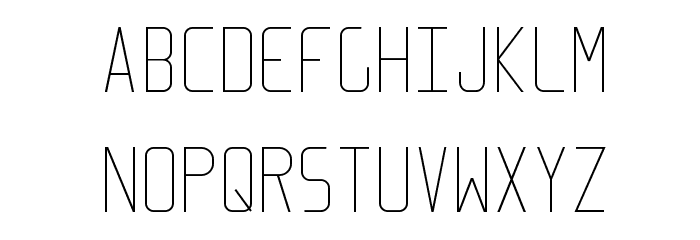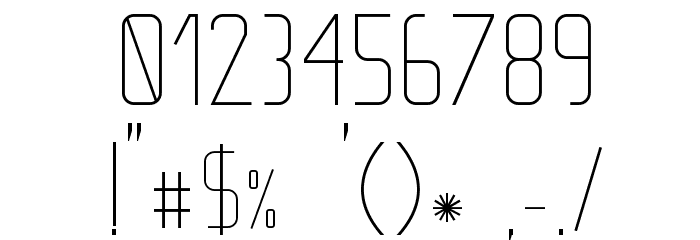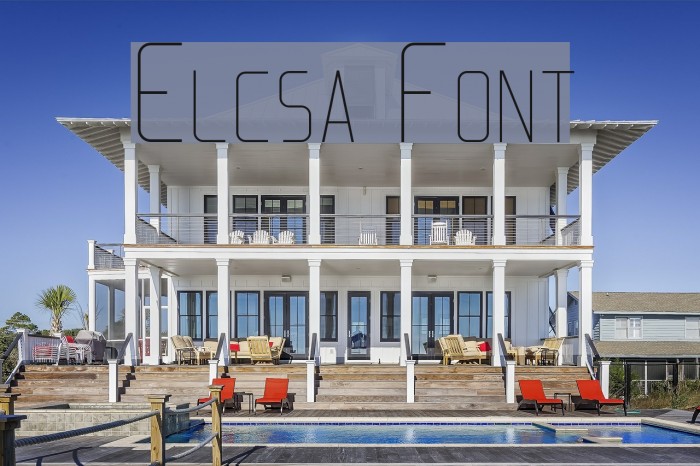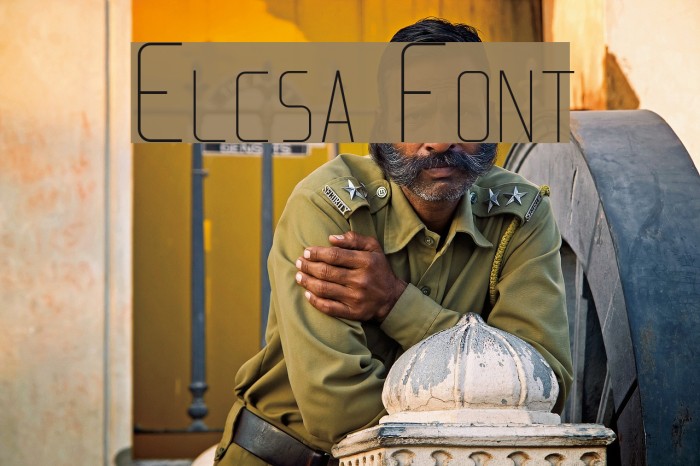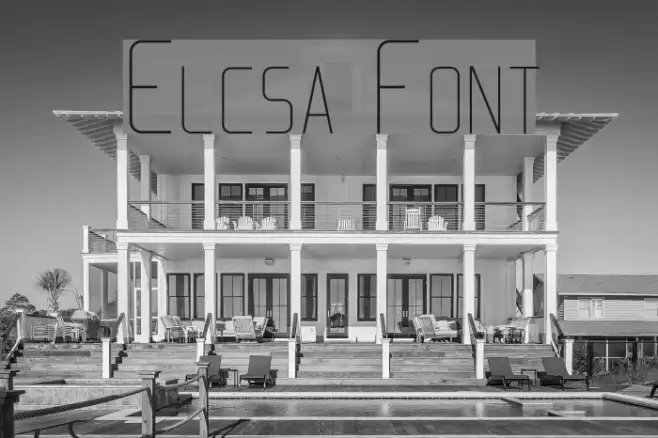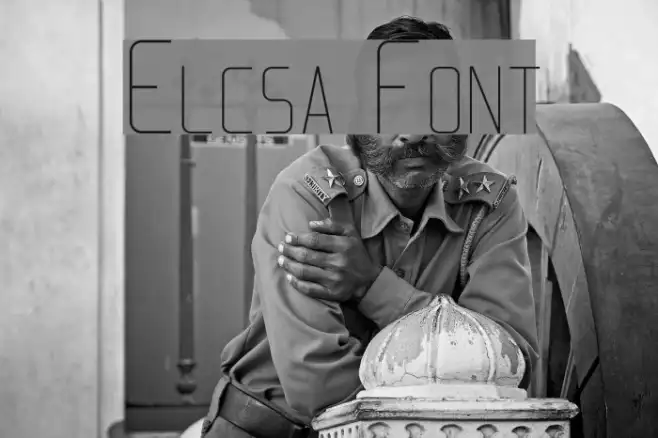
Elcsa Font
This font features a modern and minimalist design with a geometric structure. The characters are composed of thin, straight lines with a consistent stroke width, giving it a clean and sleek appearance. The uppercase and lowercase letters maintain a uniform height, contributing to a harmonious and balanced look. The numerals and special characters are designed to match the overall aesthetic, ensuring a cohesive visual experience. The font's simplicity and elegance make it versatile for various design applications.
A modern, minimalist font with geometric, thin lines and uniform structure.
- Proposed Projects: Ideal for branding, editorial design, digital interfaces, and minimalist posters.
- Use Case: Headlines, Logos, Digital interfaces